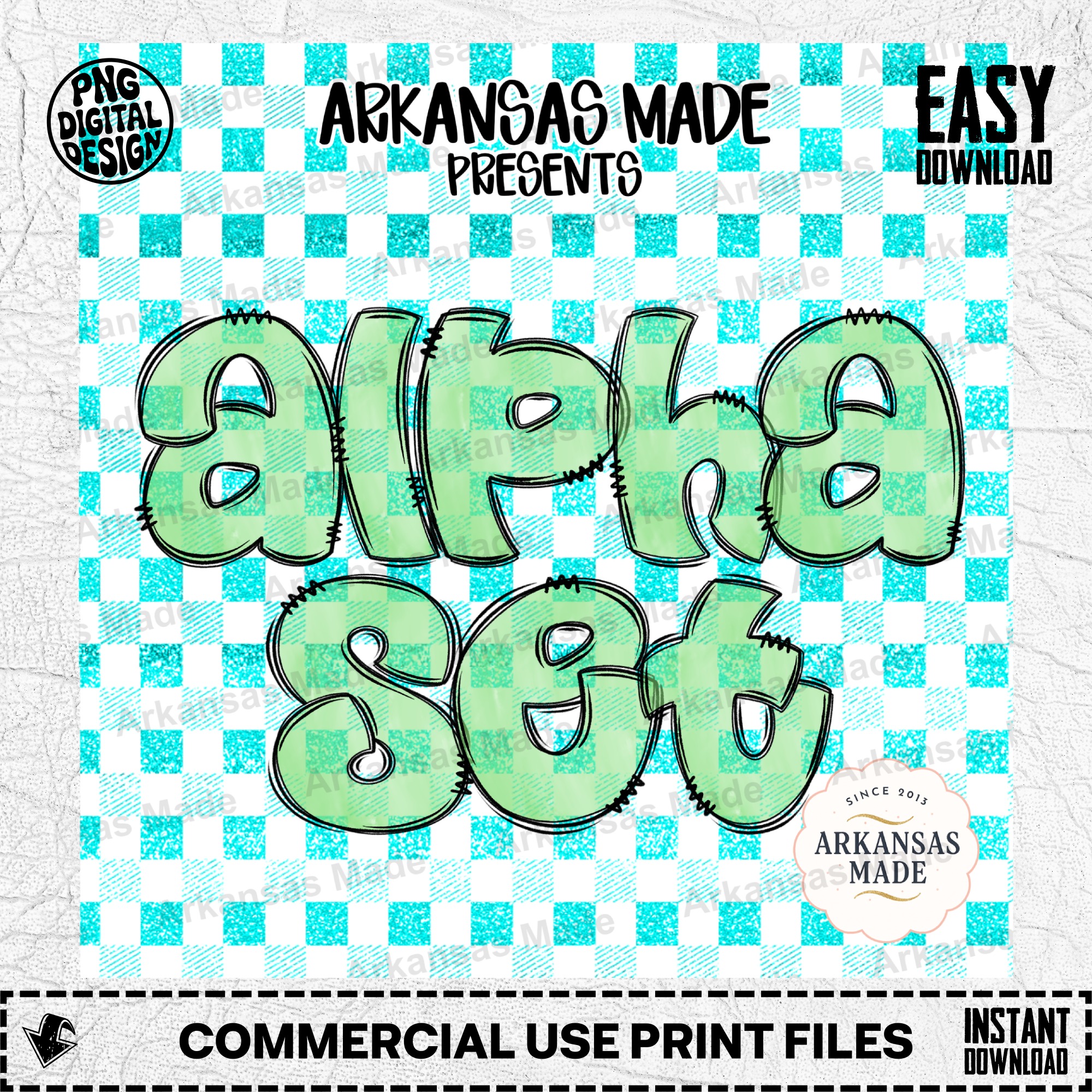
Light Green Gingham Alpha PNG Set – Distressed Bubble Letters, Stitched Outline Font, Digital Alphabet for Sublimation & Crafts
Get this adorable Light Green Gingham Alpha PNG Set featuring distressed bubble letters and a stitched outline. Perfect digital alphabet for crafters! This playful, preppy alpha set is ideal for adding a unique touch to your DIY projects. Use these transparent PNGs for custom shirts, tumblers, invitations, or personalized gifts. A must-have for small business owners, teachers, or anyone creating charming, handmade-effect designs.